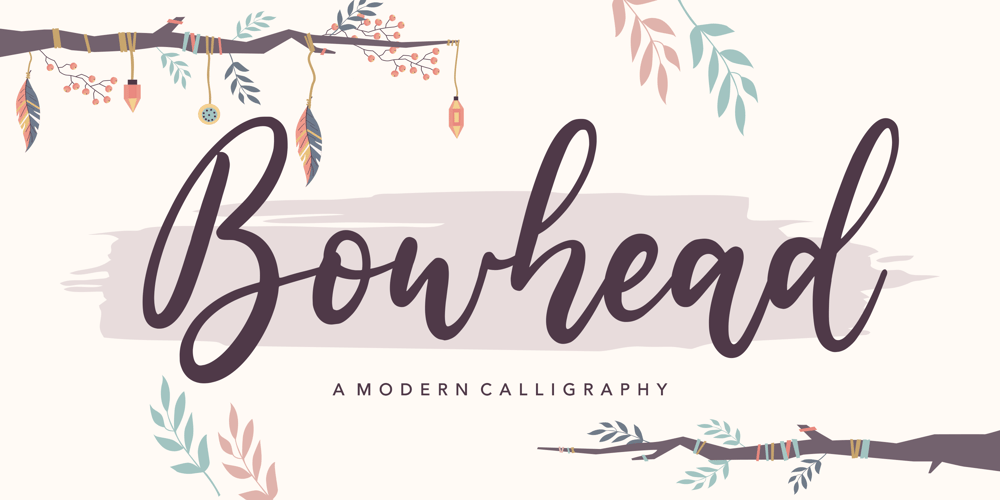
Bowhead Font Family was designed by Restu Angga and published by Balpirick. Bowhead contains 1 styles and family package options. Proudly Present, Bowhead Font.Bowhead is a Modern Calligraphy Font. This sweet font has nice smooth lines.Bowhead is perfect for product packaging, branding project, megazine, social media, wedding, or just used to express words above the background.Bowhead also multilingual support.Enjoy the font, feel free to comment or feedback, send me PM or email.Thank you!